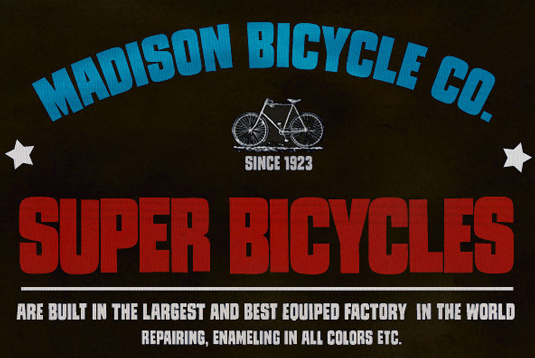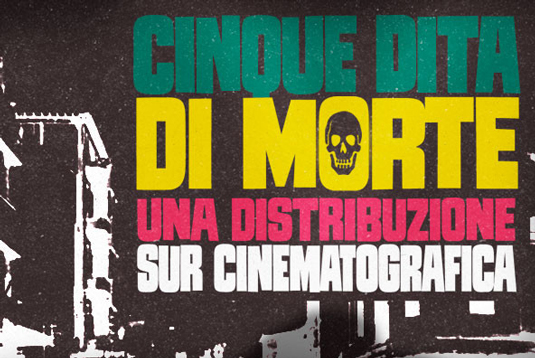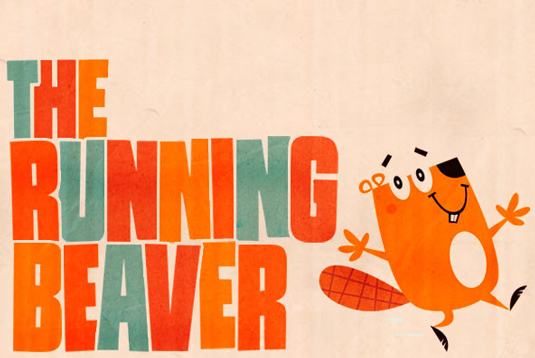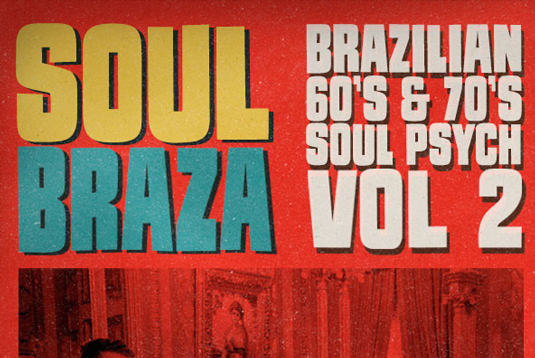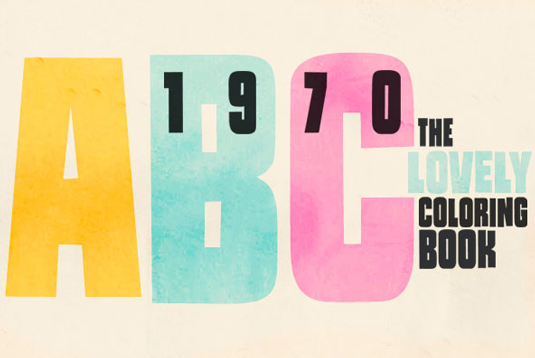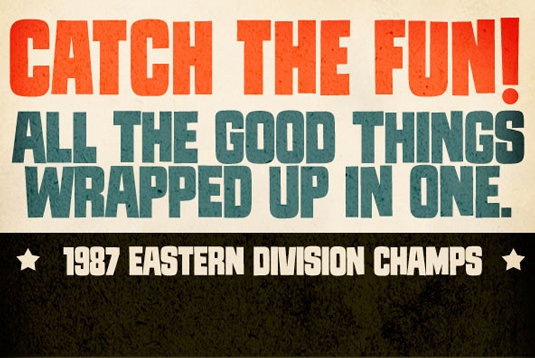
Tremendous by PintassilgoPrints
This bold, retro-style font Tremendous was created by Brazil-based digital type foundry PintassilgoPrints, run by Ricardo Marcin and Erica Jung. The duo comment on the typeface: "Strong and somewhat rough but absolutely warm-hearted, this Tremendous family is quite versatile and will find the right tone to deliver your message in a nice way. It can be friendly, it can speak out loud, it can be almost serious. It just cannot go unnoticed!"